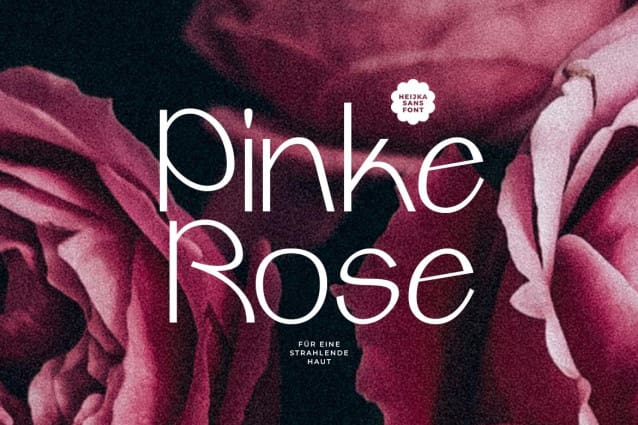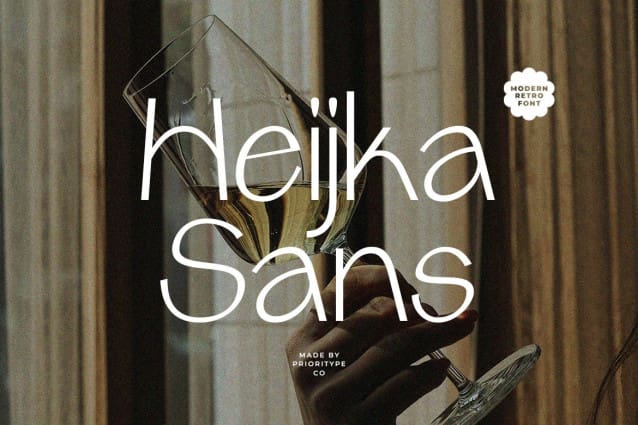
Heijka Sans Font
Heijka Sans Font– Modern Retro Font. Expressive display sans serif font. Modern style but still contains retro elements. Suitable for branding, logo and poster designs.